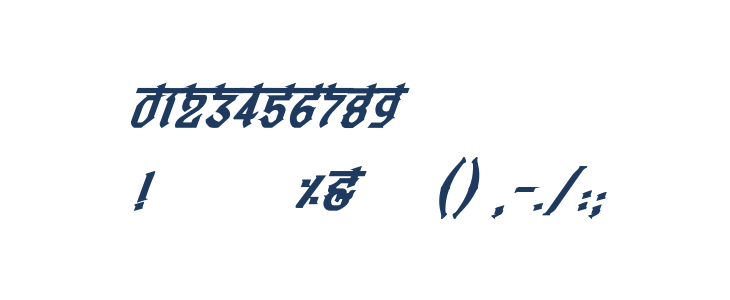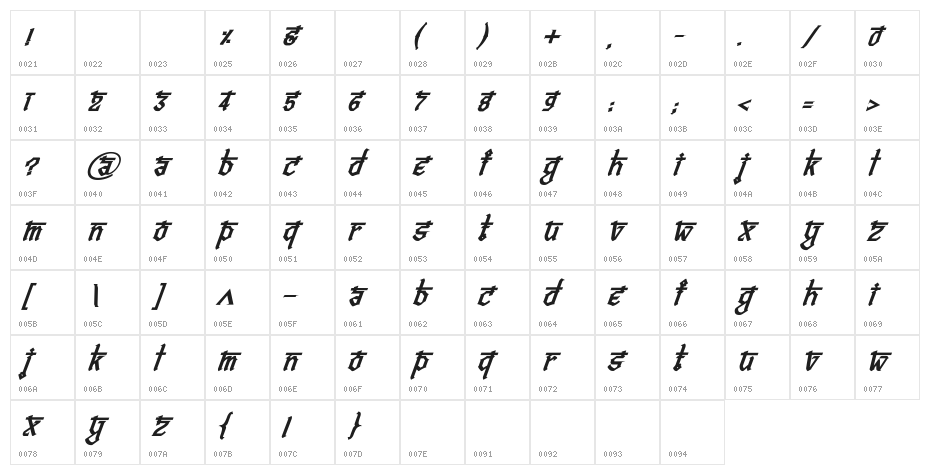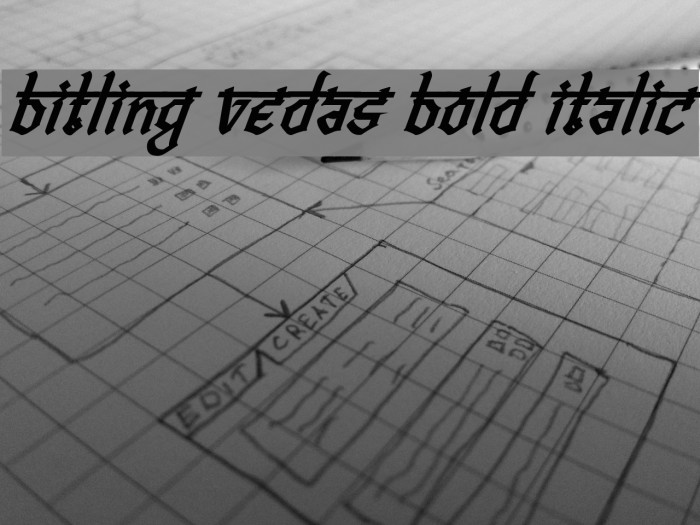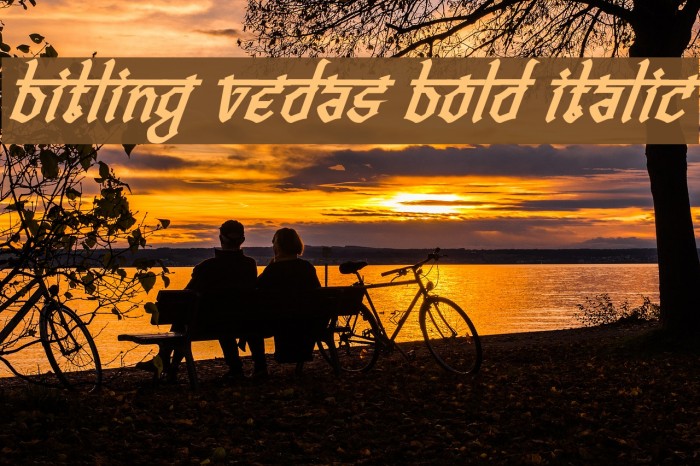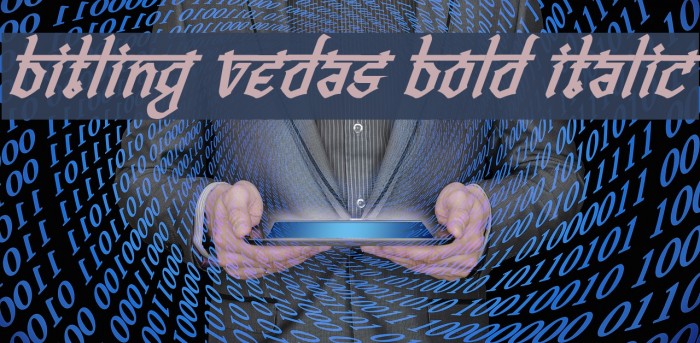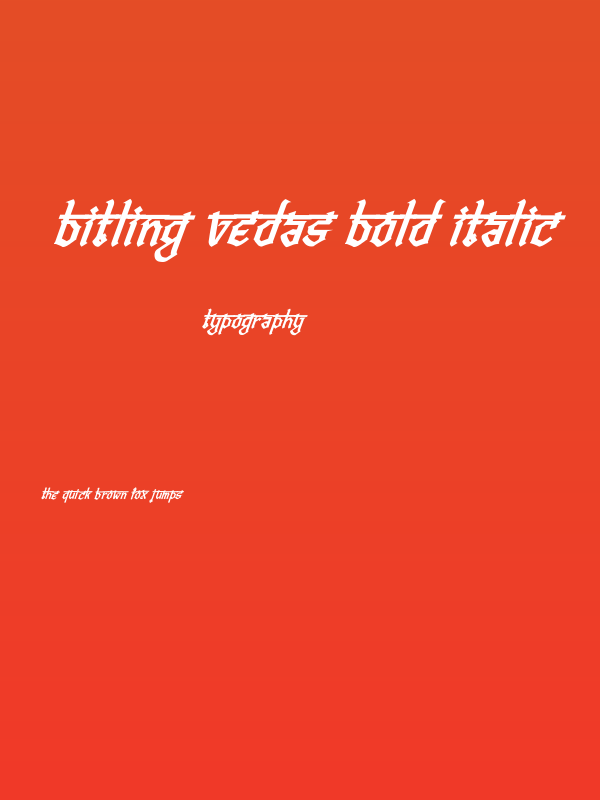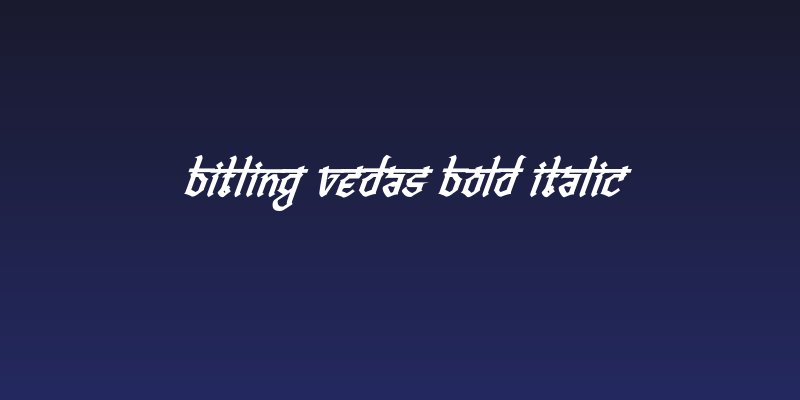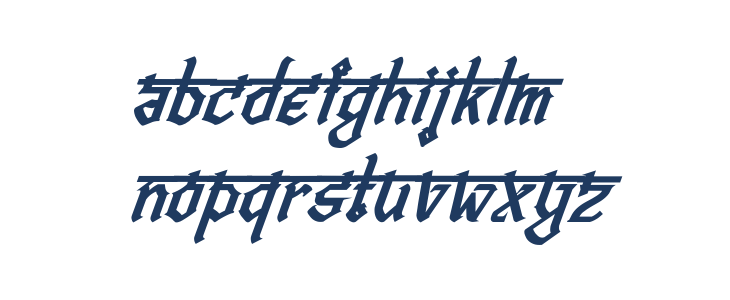
Bitling vedas Bold Italic Font
Bitling vedas Bold Italic Description
This font exhibits a bold and italicized style with a distinct slant, giving it a dynamic and energetic appearance. The characters are sharply angled, with a strong emphasis on diagonal lines, creating a sense of movement. The strokes are thick and consistent, contributing to its boldness, while the italic slant adds a touch of elegance and fluidity. The font's design incorporates a modern twist on traditional calligraphic elements, making it suitable for attention-grabbing headlines and titles. The spacing between characters is tight, enhancing its compact and cohesive look. Overall, this font combines boldness with a sense of motion, making it ideal for projects that require a striking and contemporary aesthetic.
| Proposed Projects | Ideal for headlines, posters, branding, and any design requiring a bold, modern touch. |